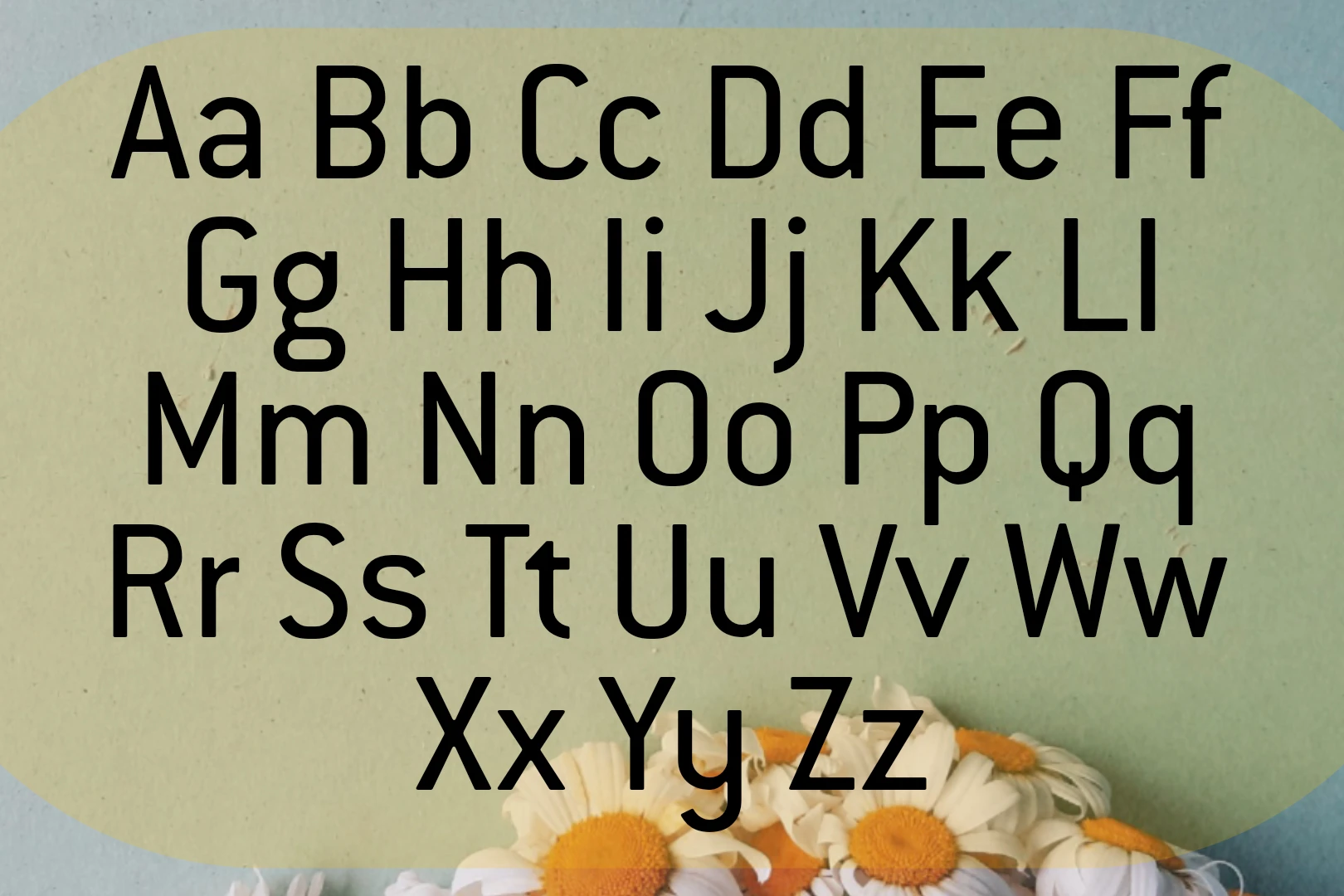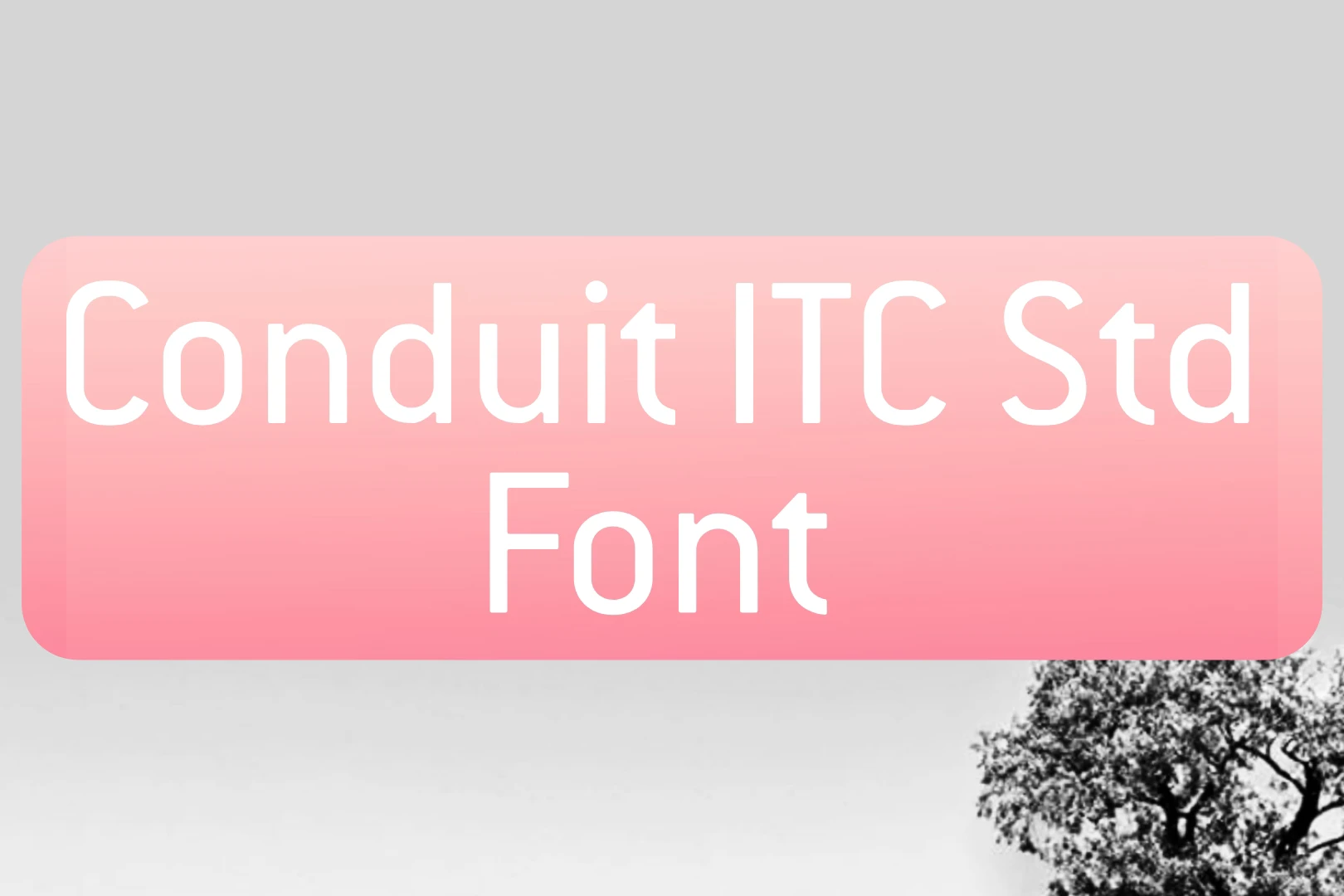
Conduit ITC Std Font, crafted and published by Mark Van Bronkhorst, stands out as a remarkable technical sans-serif typeface. Its design showcases extraordinary glyphs and characters, making it versatile for various applications.
Uses of Conduit ITC STD Font
Conduit ITC Std texture is an excellent choice for a wide array of design applications, offering a sleek and modern aesthetic that enhances visual appeal. Its clean and technical sans-serif style makes it particularly suitable for various contexts.
It is ideal for web designers aiming to create a polished and professional look for websites. Its clear and well-defined glyphs contribute to optimal readability, ensuring a positive user experience. you can easily pair this font with Applied Sans Font Free Download, In logo design, It stands out with its distinctive characters, allowing businesses to craft unique and memorable brand identities. The font’s modern style adds a touch of sophistication to logos across different industries.
When it comes to printed materials such as brochures, business cards, or posters, the font’s clarity shines through. This Font maintains legibility even in smaller print sizes, making it an excellent choice for a wide range of printed collateral. For corporate documents, reports, and presentations, It offers a professional and clean appearance. Its versatility ensures that the font adapts seamlessly to different document styles while maintaining a cohesive and polished look.
User Interface (UI) Design:
Designers working on user interfaces can leverage Conduit ITC Std texture to create a modern and streamlined appearance. The font’s technical yet approachable style enhances the overall design, making it suitable for software interfaces and applications.
Marketing Materials:
Whether used in digital or print marketing materials, It adds a touch of sophistication. From banner ads to promotional flyers, the font’s versatility allows it to complement various marketing strategies.
Product Packaging:
Conduit ITC Std typeface can be effectively used on product packaging, contributing to a clean and contemporary design. Its adaptability makes it suitable for diverse product lines, ensuring a consistent and visually appealing brand presence.
Wo designed the Conduit ITC Std Font?
This wonderful texture was crafted and published by Mark Van Bronkhorst and stands out as a remarkable technical sans-serif typeface.